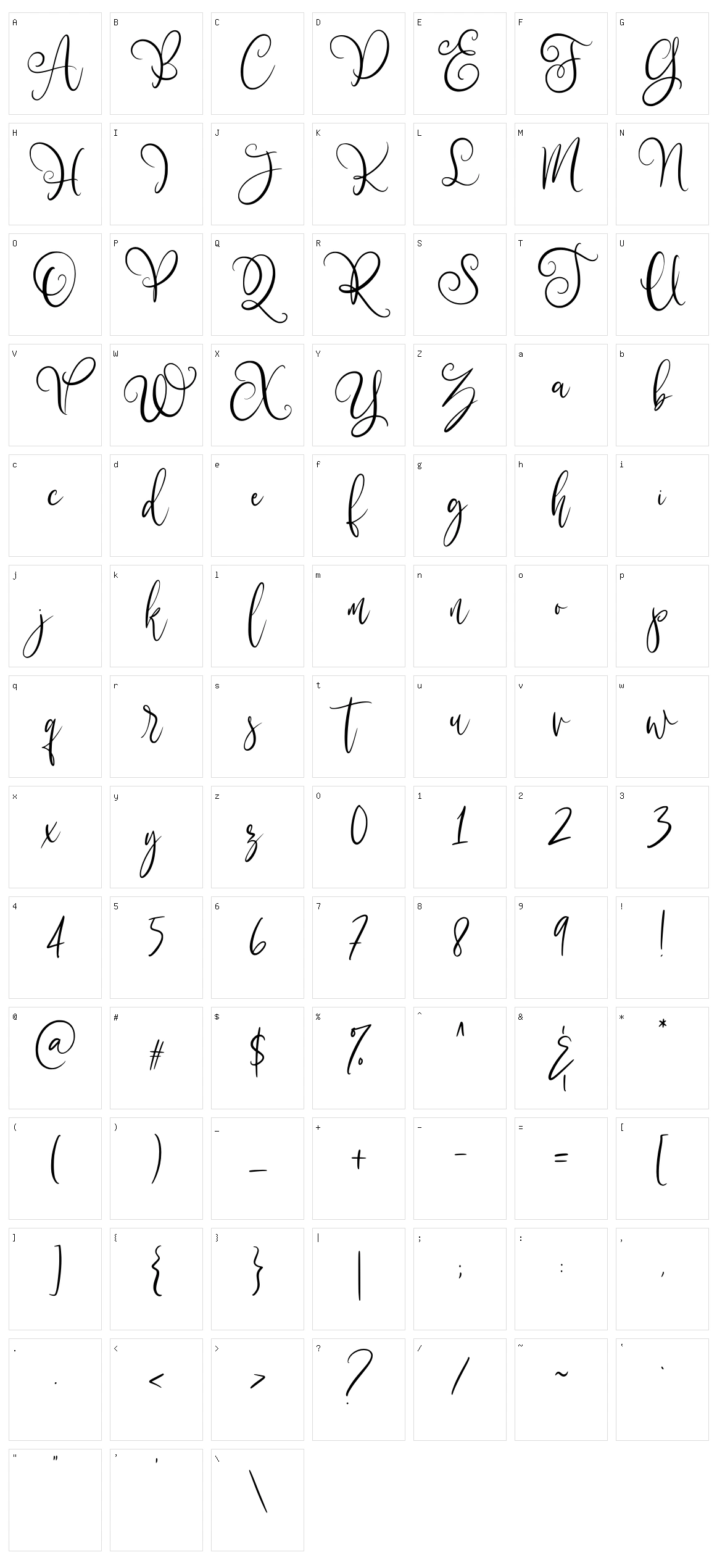
The free font Blessed Farmhouse A is carefully designed by Abo Daniel Studio, showcasing a thoughtful balance of creativity and usability and falls under the Script font style. When you download the ZIP file, it contains only 413.08 KB of font files, making it lightweight and quick to download. Please review the license details below to understand permitted usage and distribution rights. If license information is not available, we recommend using this font for personal projects only or contacting the author directly for commercial usage permissions.
BLESSED FARMHOUSE
- crafty and bouncy font duo -